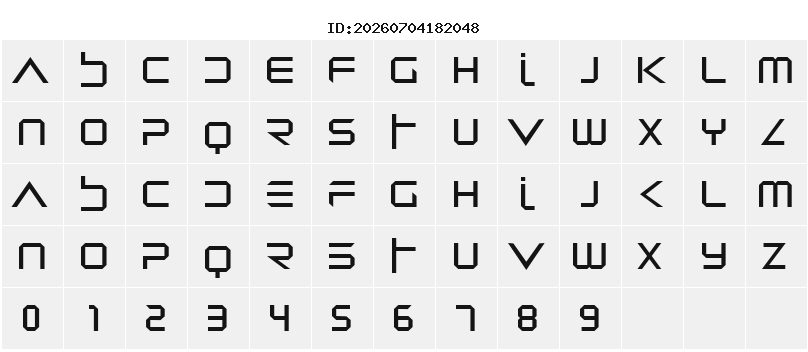
• Font Name: Dredwerkz
About Dredwerkz.ttf
Dredwerkz.ttf is a modern, elegant sans-serif font designed for ultimate readability and visual harmony. Perfect for branding, headlines, web design, and print materials.